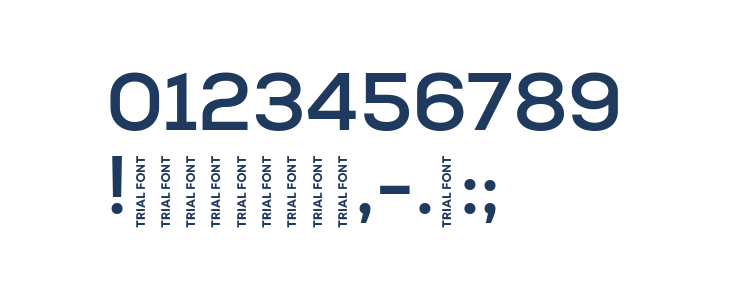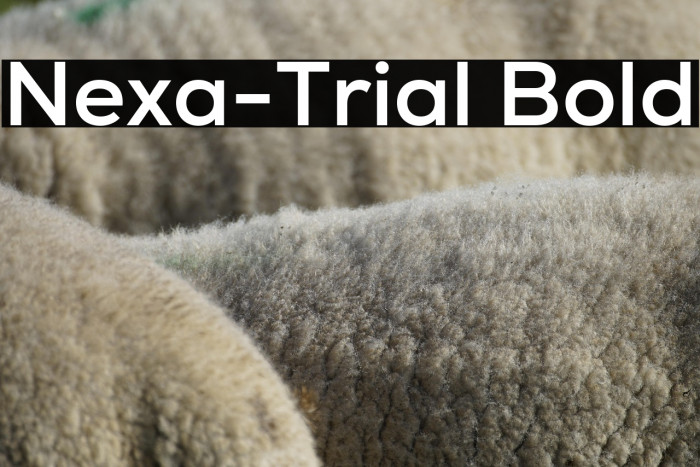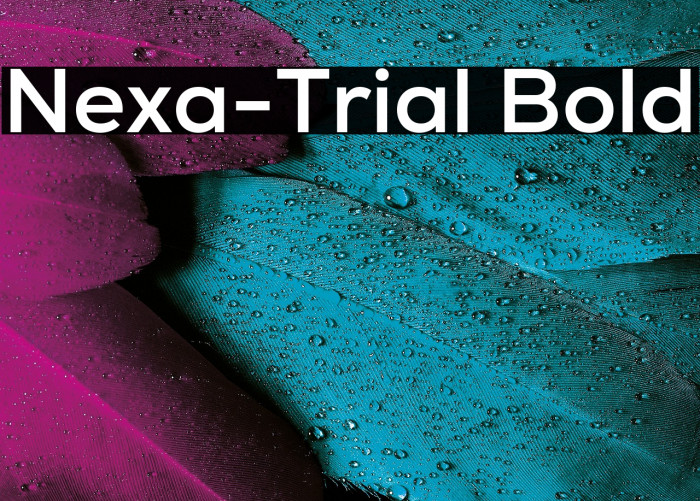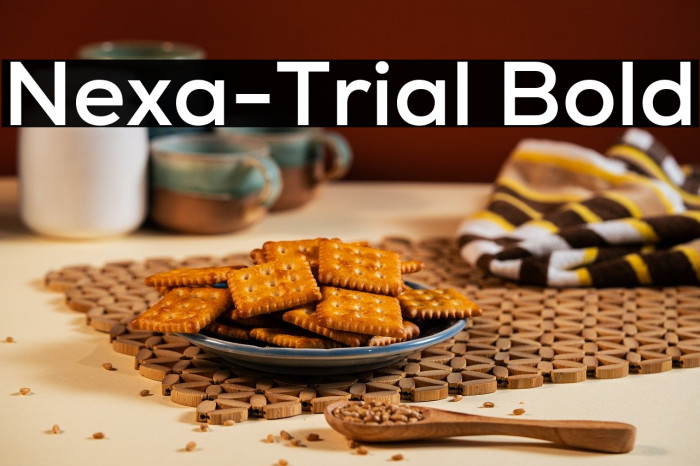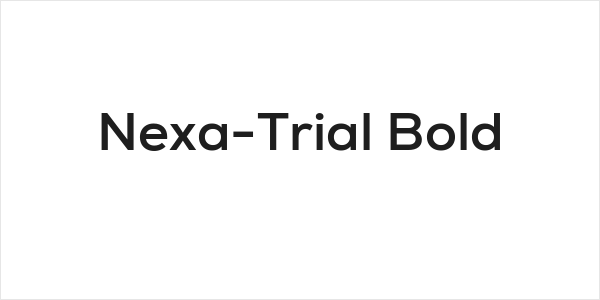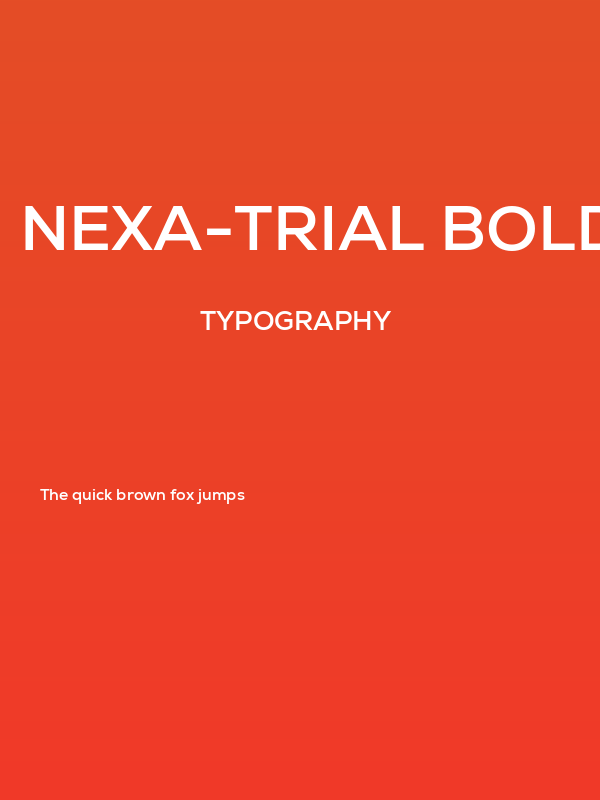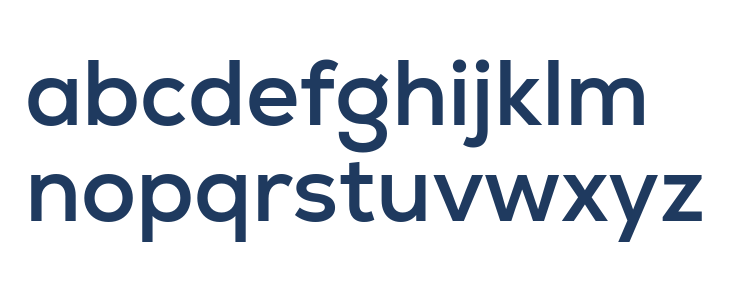
Nexa-Trial Bold Font
Nexa-Trial Bold Description
This font features a clean and modern sans-serif design with a bold weight, making it highly legible and impactful. The characters are well-proportioned with a consistent stroke width, contributing to its contemporary appearance. The uppercase and lowercase letters maintain a uniform style, while the numerals are clear and straightforward. Special characters are designed with the same attention to detail, ensuring they integrate seamlessly with the rest of the typeface. The overall look is sleek and professional, suitable for a variety of design applications.
| Use Case | Headlines, Logos, Digital Interfaces |
| Proposed Projects | Ideal for branding, advertising, headlines, and digital interfaces where clarity and modernity are key. |